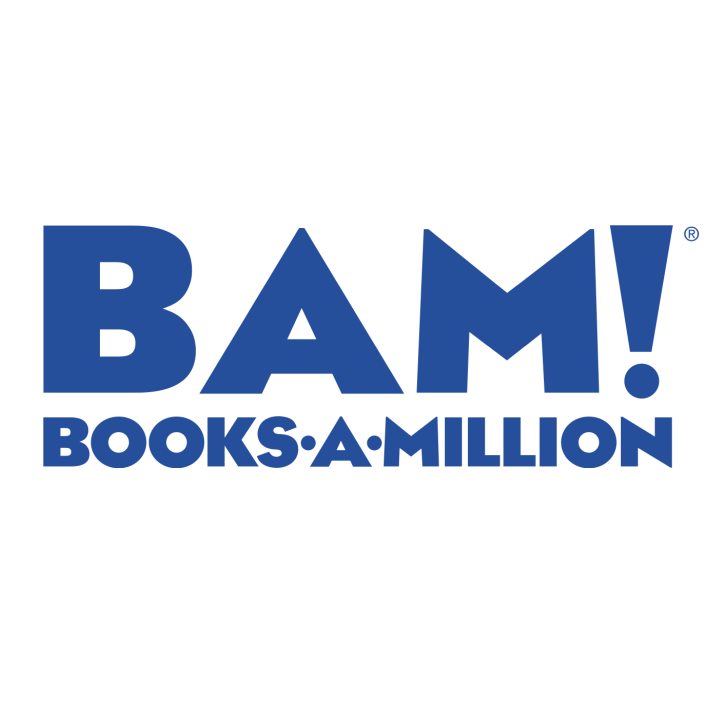
Books-A-Million Font
Fonts in UseBooks-A-Million is a retail chain that sells books, magazines, toys, and technology products. It operates over 200 stores in 32 states in the US, as well as an online store. Clyde W. Anderson started a newsstand in Florence, Alabama in 1917, which later became the foundation for the chain.
The logo of the book chain incorporates caps that bear a resemblance to Eagle Bold, a sans-serif font created by Morris Fuller Benton. This font was originally based on the Blue Eagle logo of the National Recovery Association.